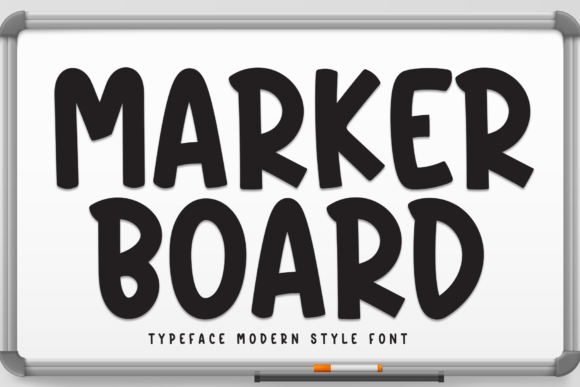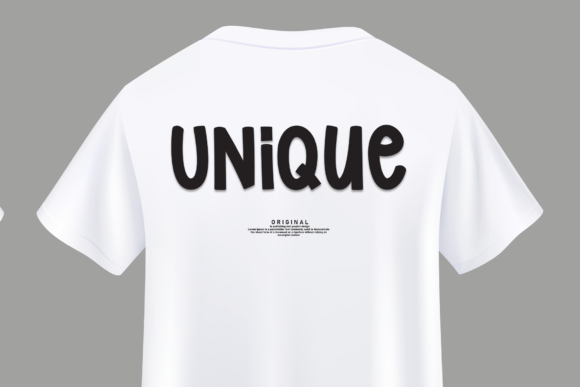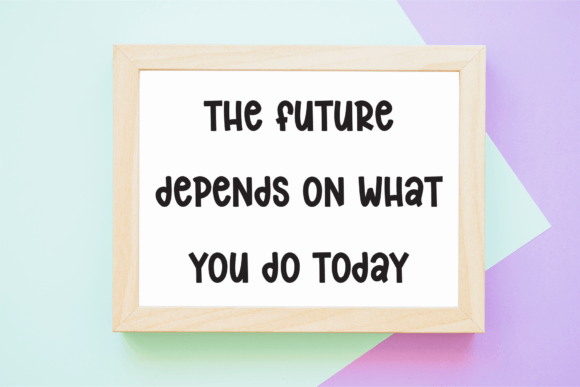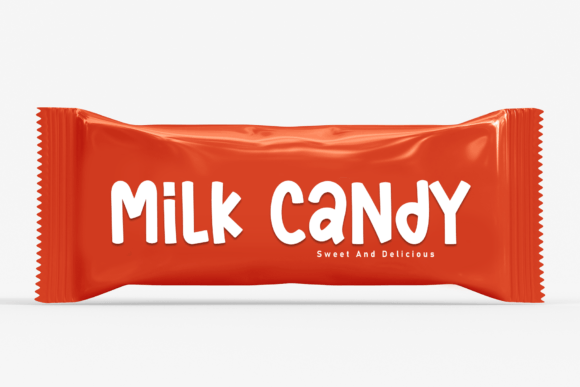
Marker Board Font: A Cute Display Font for Cricut & DIY Projects
About the Marker Board Font
Explore the possibilities with Marker Board Font, a font that offers both beauty and functionality. Marker Board is a sweet and friendly handwritten font. Cute yet versatile, this font is ideal for writing wedding invitations, cards, or any other design that might need a lovely touch!
Its friendly, informal style makes Marker Board Font perfect for projects requiring a warm, approachable feel. Think children’s books, branding for cafes or boutiques, short social media posts, or packaging for handmade goods. However, its handwritten nature makes it unsuitable for lengthy body text or applications demanding high readability, such as websites or user interfaces.
Pairing Marker Board Font with a clean sans-serif like Open Sans for body copy creates a balanced contrast. For a more playful feel, consider pairing it with a geometric sans-serif such as Futura. If a more elegant touch is needed, a delicate serif font like Garamond could complement its charm.
Marker Board Font projects a cheerful, approachable personality, best suited for brands focused on warmth and approachability. Its handwritten quality adds a handcrafted element, suggesting authenticity and care.
Marker Board Font Usage Examples
Marker Board Font Example